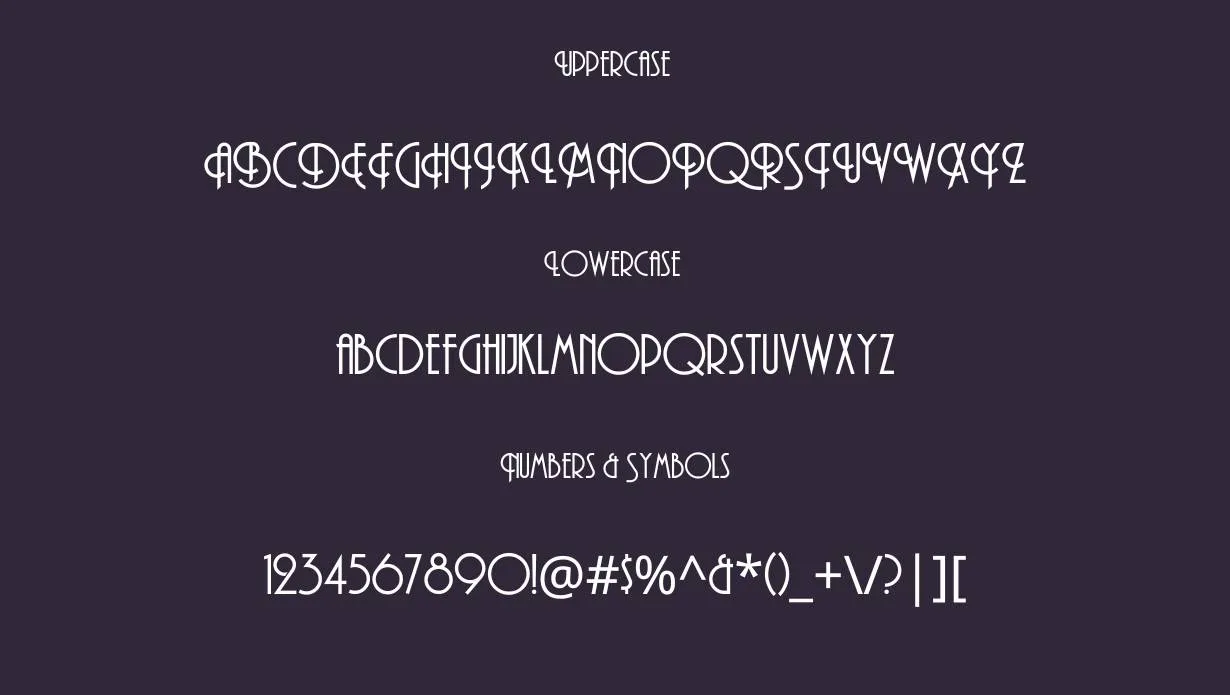
The Great Gatsby font is like a glamorous invitation to the roaring twenties. With its stylish and Art Deco design, it’s ideal for creating elegant party invitations, designing sophisticated event posters, or adding a touch of vintage flair to your branding.
This font has a medium weight and standard width, giving your words a classic and timeless appearance. Picture using The Great Gatsby font for a themed party announcement, turning your text into a celebration of the Jazz Age.